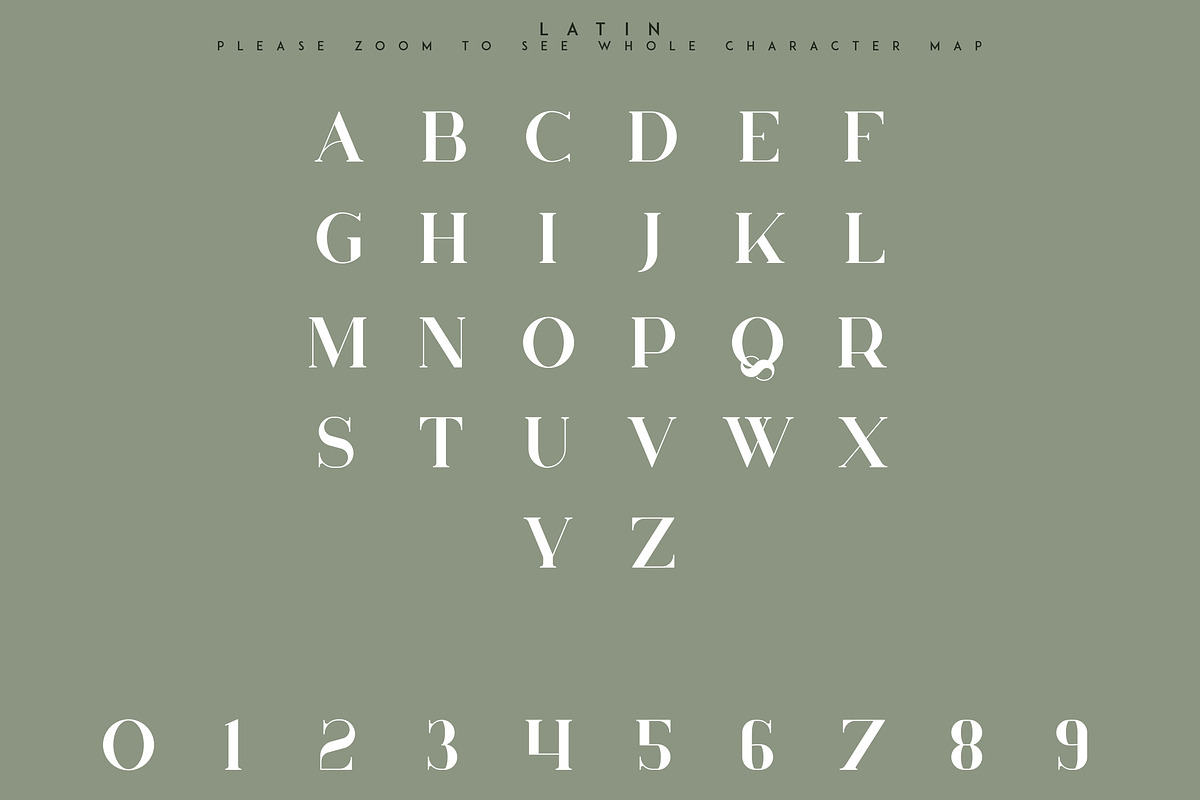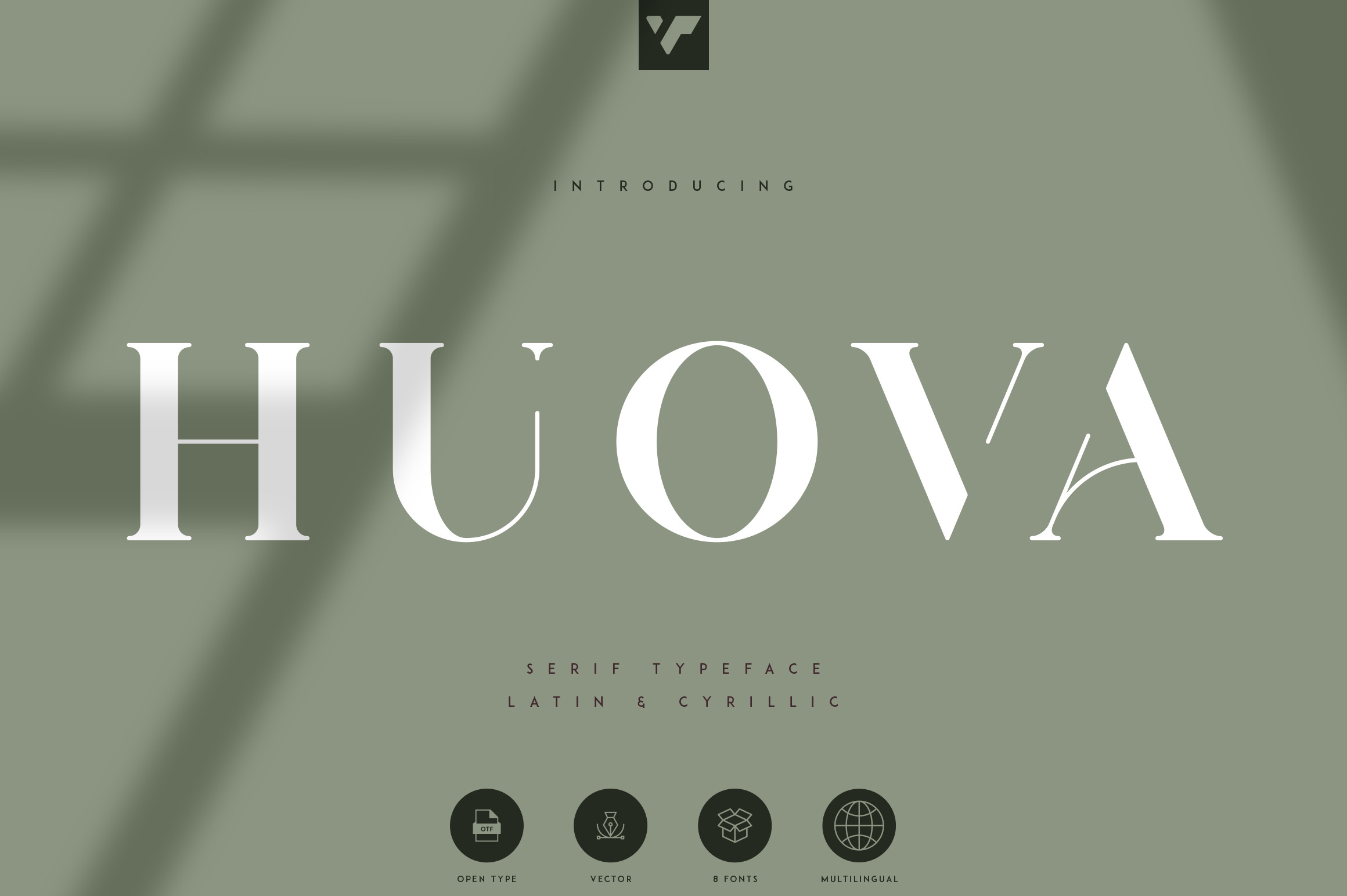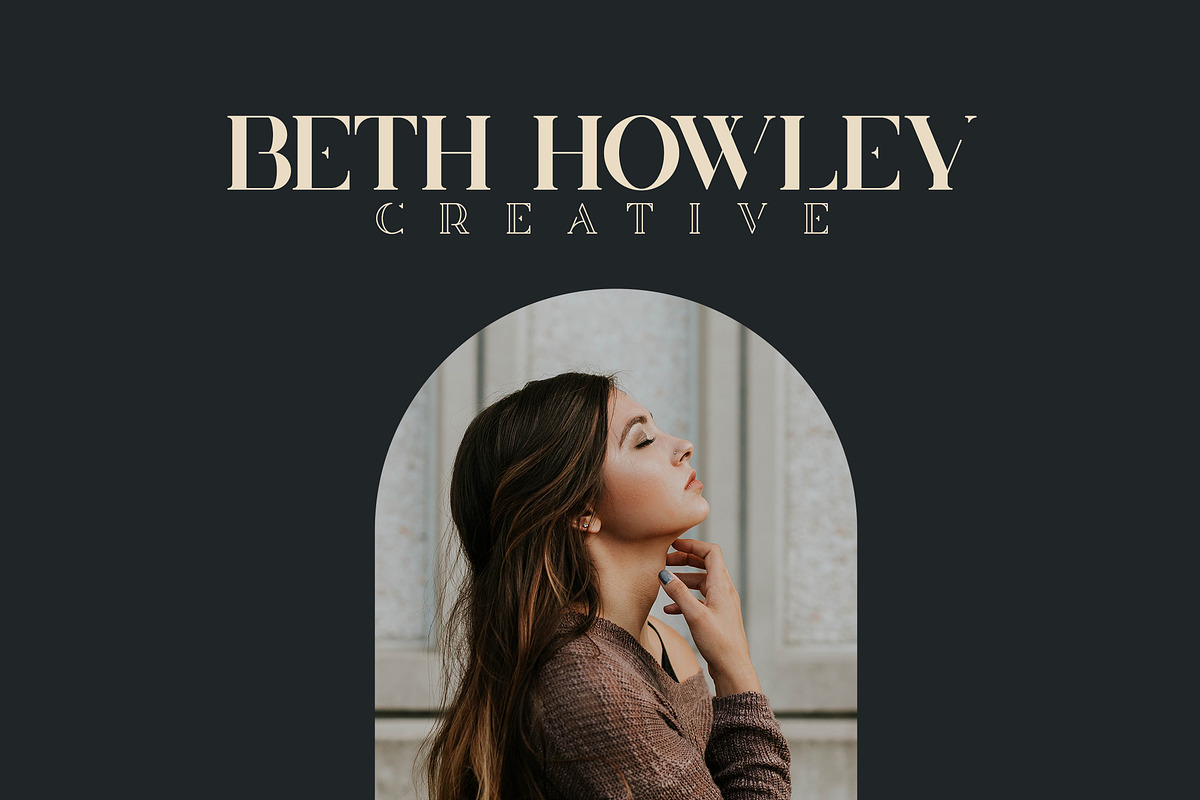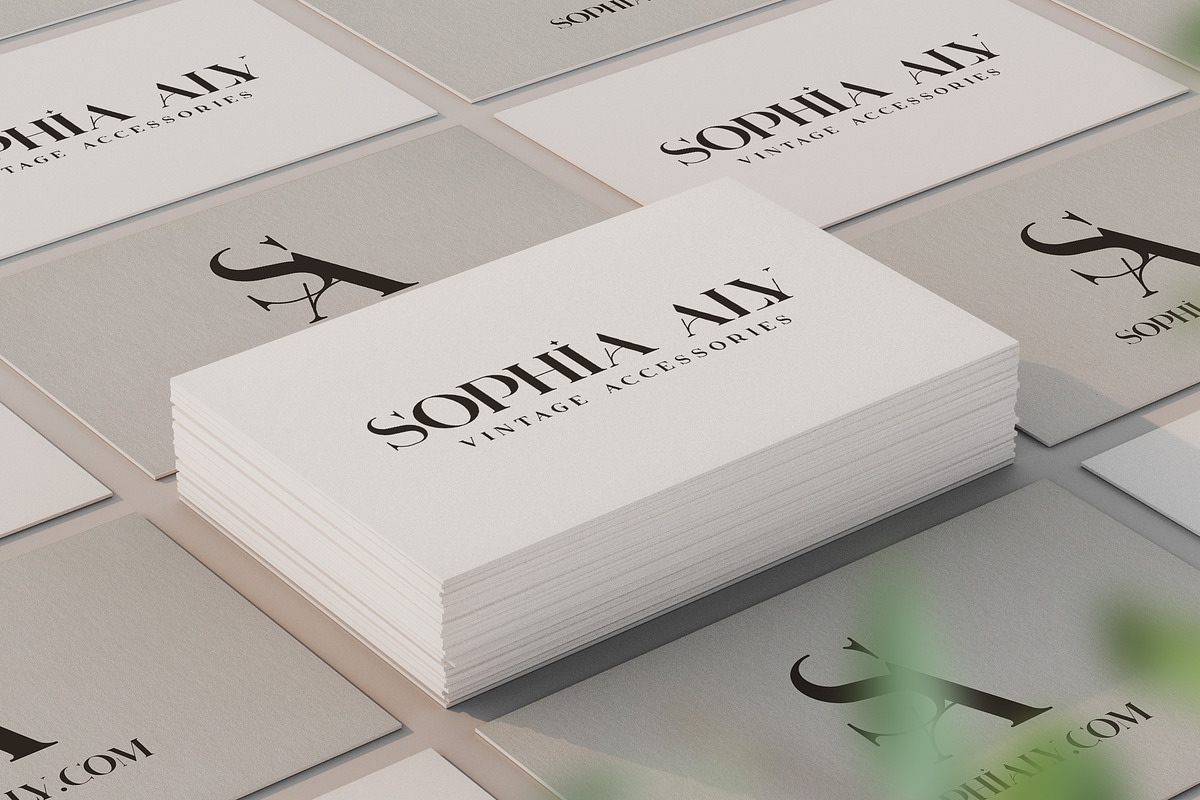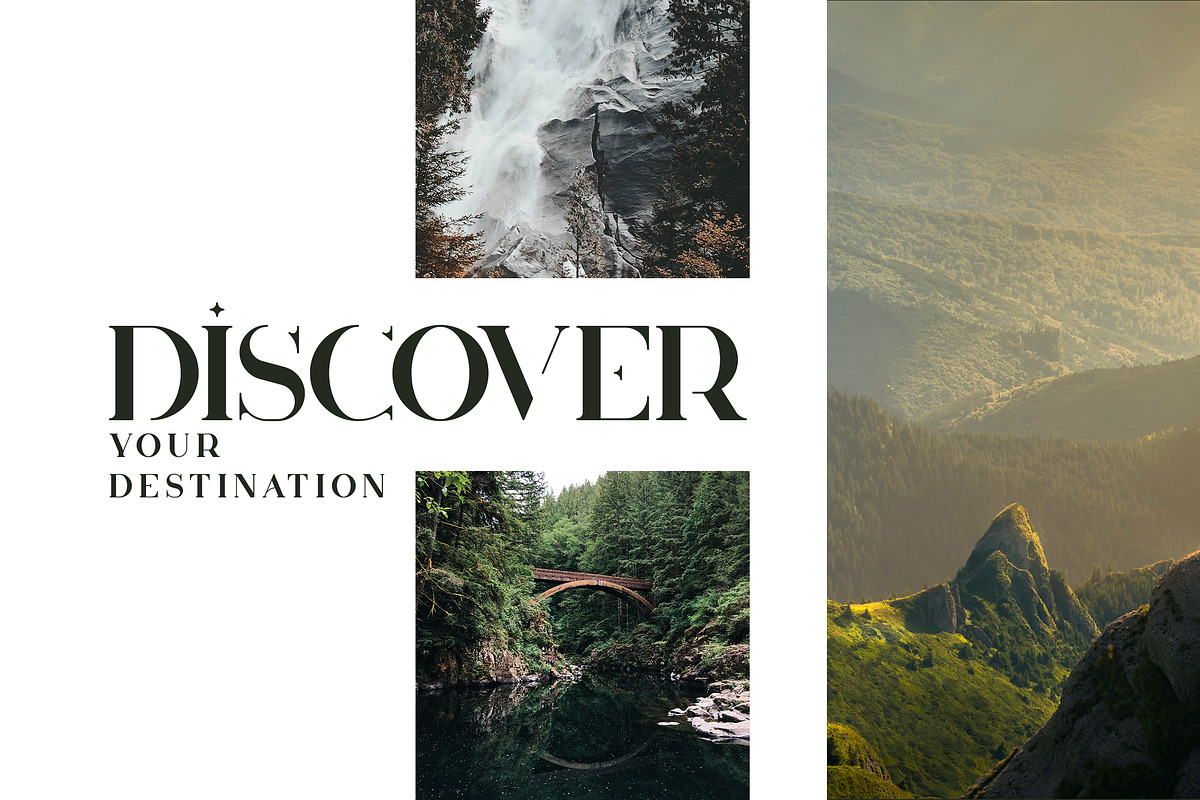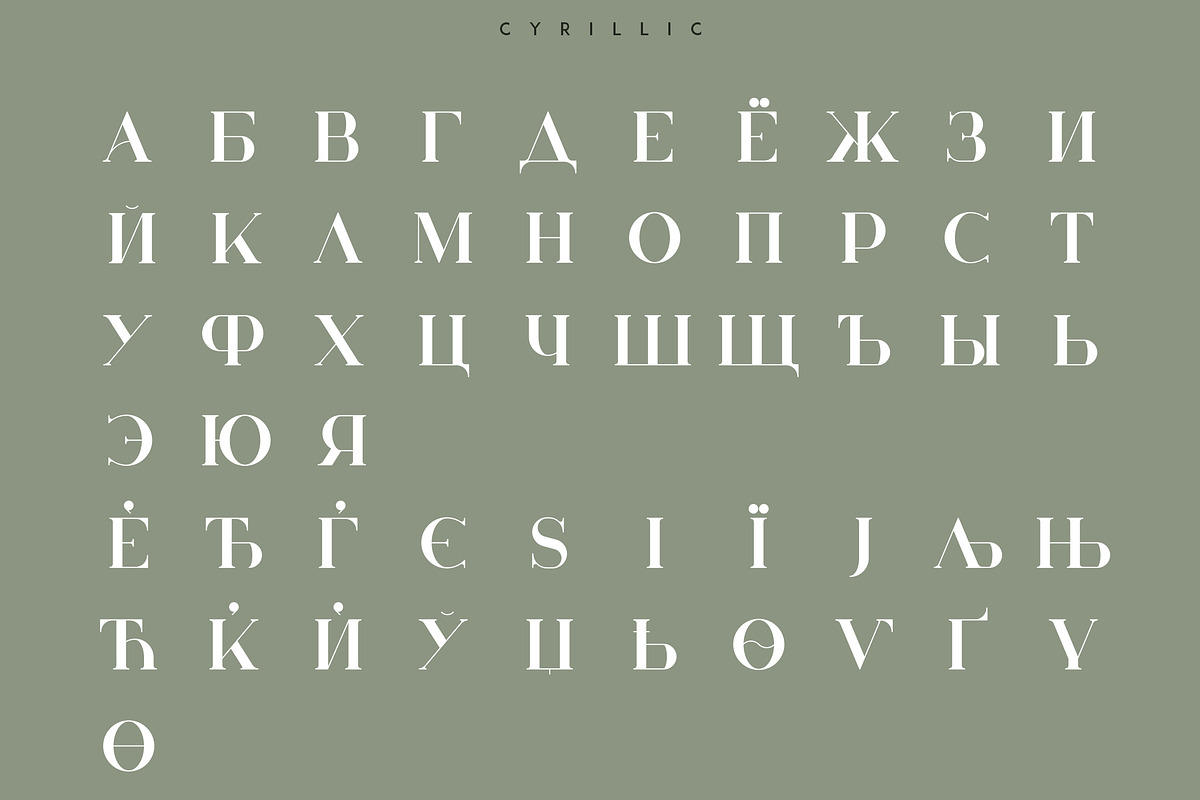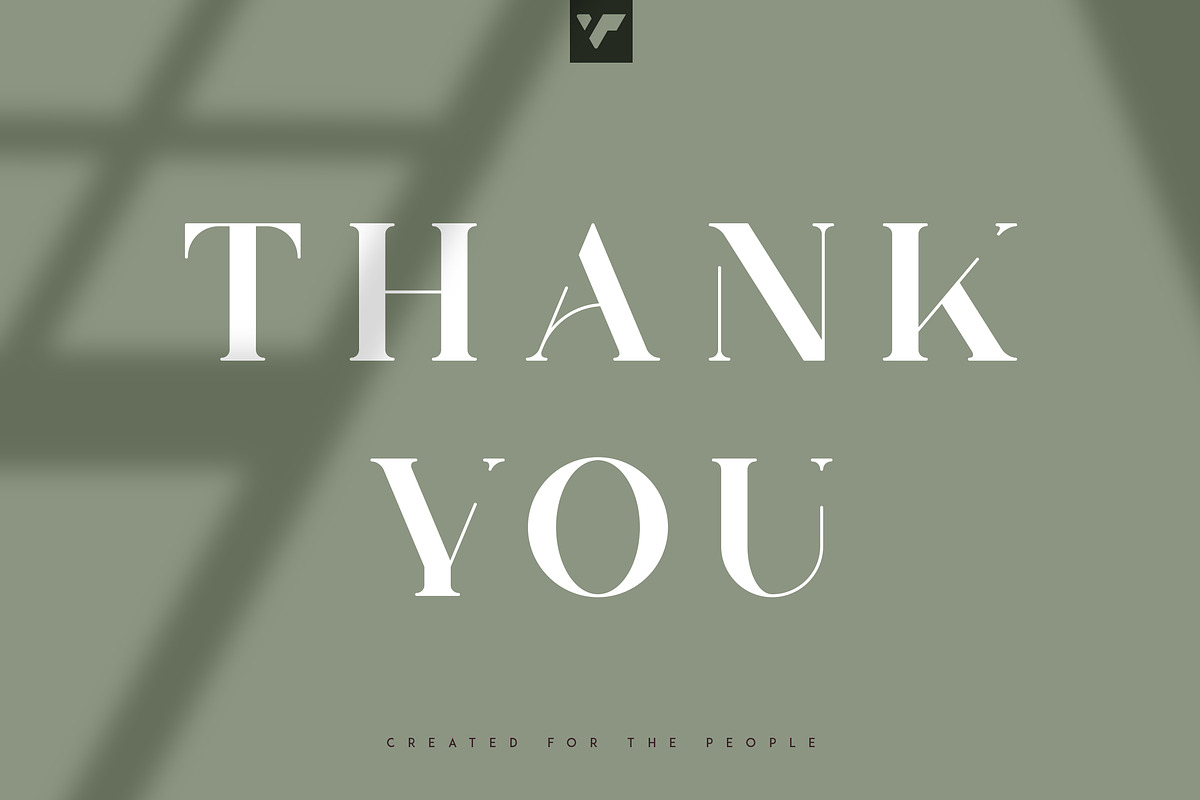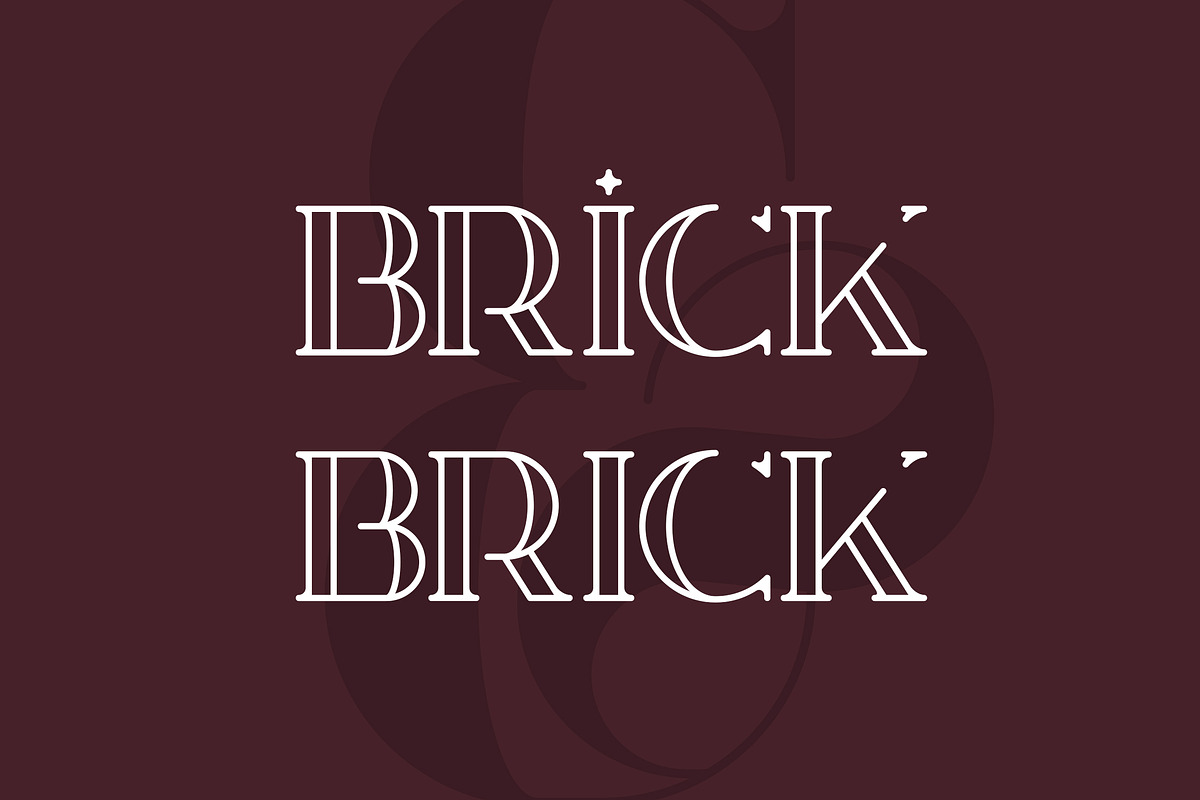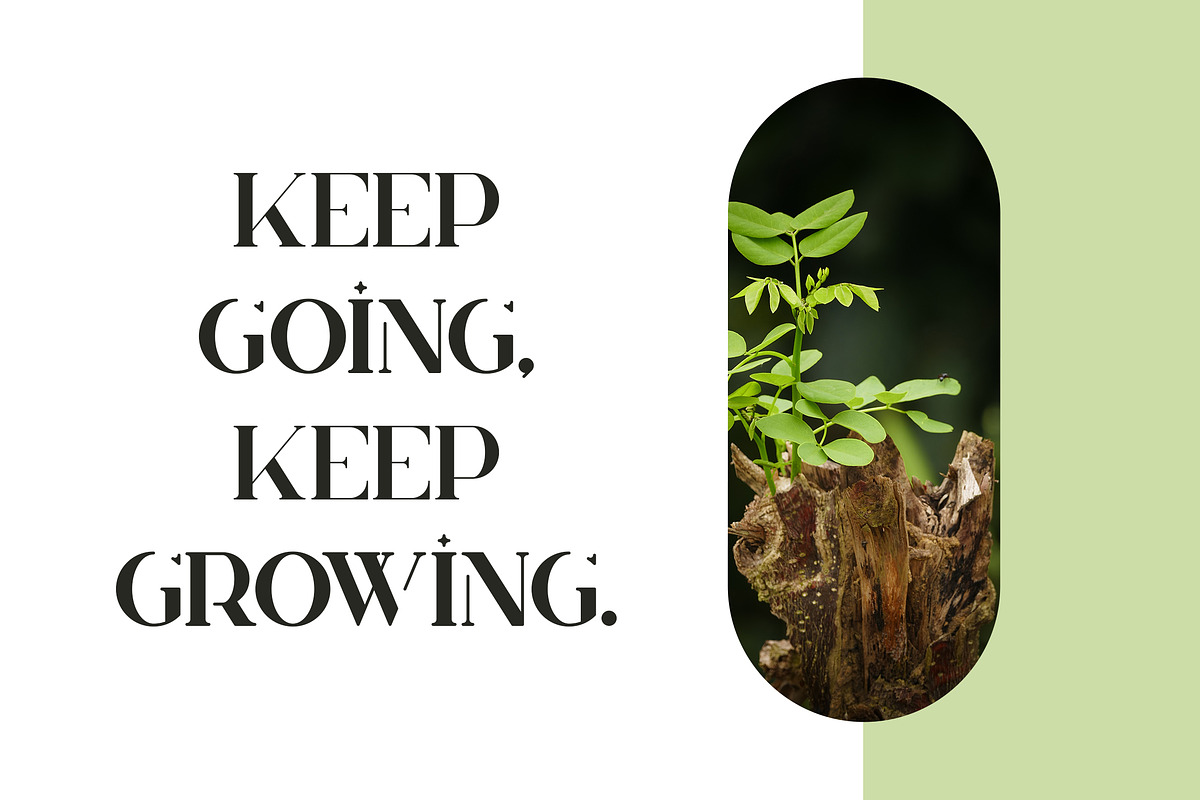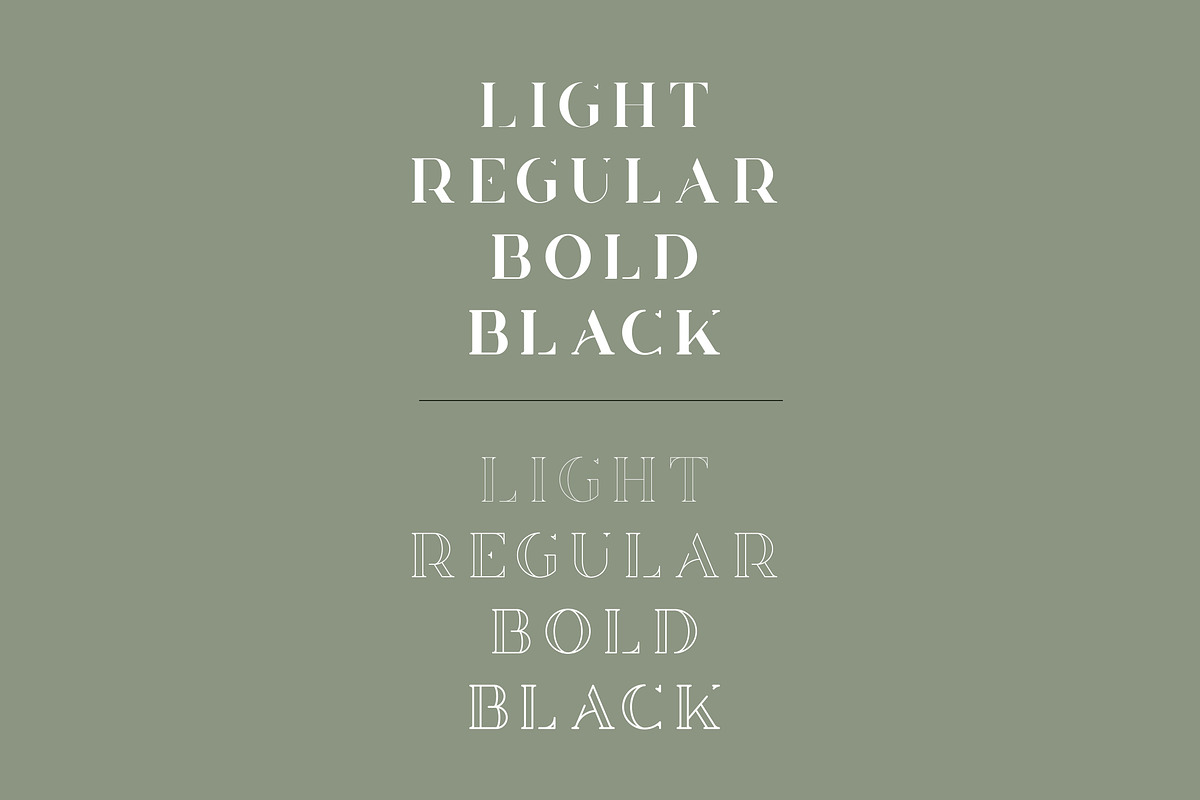
Introducing Huova Serif typeface
Huova is classic, sophisticated typeface with 8 fonts to enchant your next project. Very versatile fonts that works great in large and small sizes. Basic latin, advanced latin, basic Cyrillic and advanced Cyrillic character sets are supported!
Huova is perfect for branding projects, home-ware designs, product packaging, magazine headers - or simply as a stylish text overlay to any background image.
Uppercase numeral, punctuation & Symbol
Light, Regular, Bold, Black
Outline Light, Regular, Bold, Black
Basic and Advanced Cyrillic support